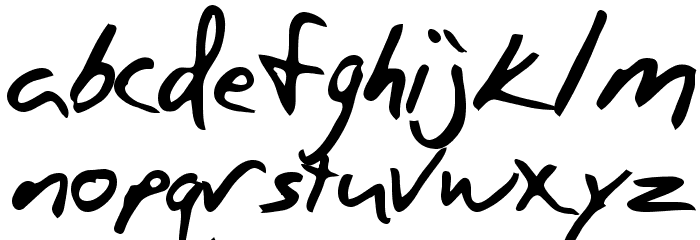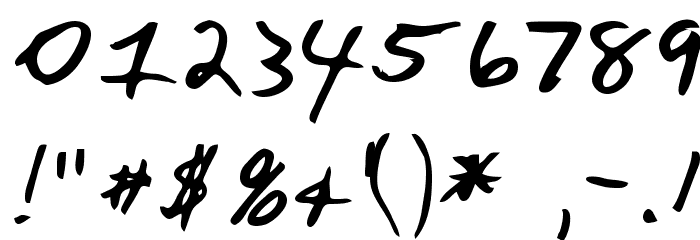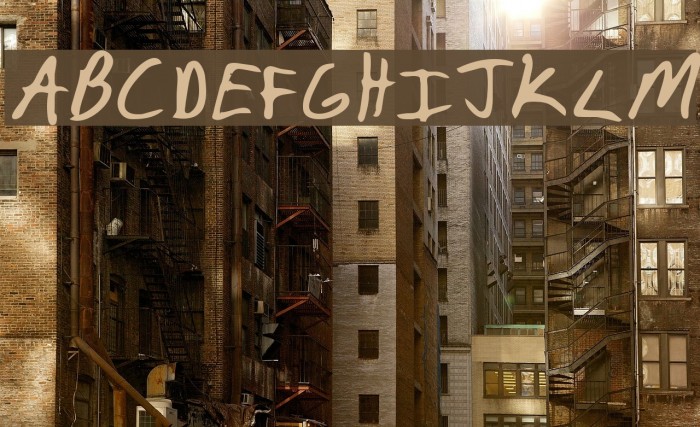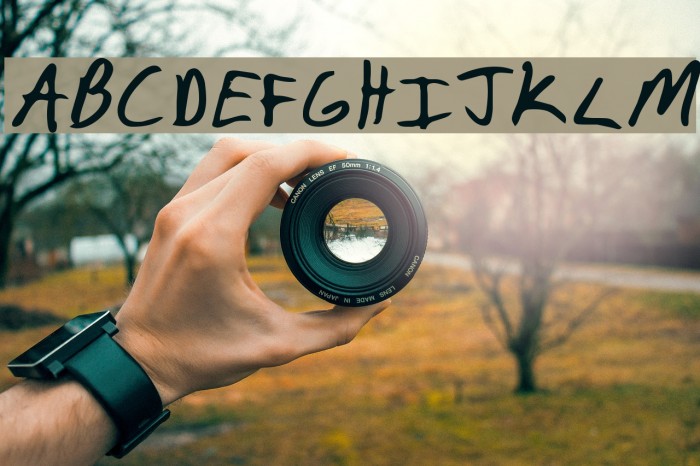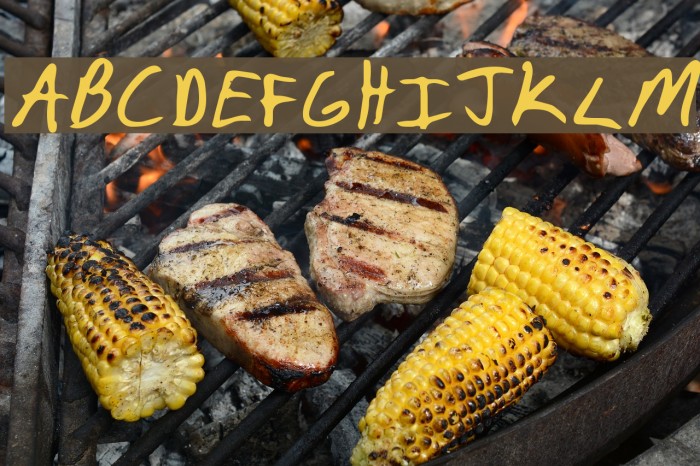
Paulson Regular Font
This font features a dynamic and expressive handwritten style, characterized by its fluid and organic strokes. The letters are slightly slanted, giving it a casual yet energetic appearance. The uppercase and lowercase letters maintain a consistent flow, with some characters exhibiting unique flourishes that add personality. The numbers and special characters follow the same lively design, ensuring a cohesive look across all elements. This font's playful nature makes it ideal for projects that require a personal touch or a sense of informality.
A dynamic, expressive handwritten font with fluid, organic strokes.
- Proposed Projects: Ideal for greeting cards, personal branding, social media graphics, and informal invitations.
- Category: Handwritten
- Overall Style: Casual
- Use Case: Logos, Headlines, Informal Text